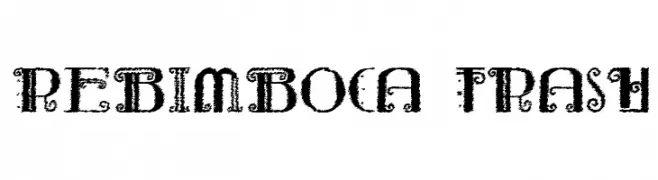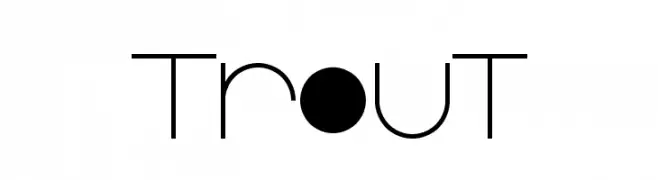
A bold, cracked texture font with a rugged, edgy appearance.
A modern, geometric font with clean lines and consistent stroke width.
A bold, distressed font with a rugged, textured appearance.
A bold, distressed font with a vintage, industrial style.
A textured, nature-inspired font with a rugged, organic appearance.
A futuristic and abstract font with smooth, flowing lines and a dynamic style.
A playful, bold, and hand-drawn font with a whimsical and informal style.
A playful, hand-drawn font with tall, narrow characters and a whimsical style.